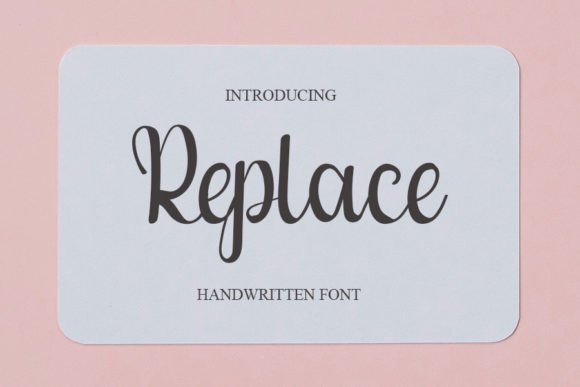
Feast your eyes on Replace - the epitome of handwritten fonts, crafted to bring warmth and personality to your digital creations. This modern script font, conceived by the talented NYA Letter, exudes poise and elegance.
Imagine your designs adorned with Replace's flowing curves, graceful lines, and captivating swashes. This font invites you to break free from conventional typography, adding a touch of artistry to your web pages, social media graphics, branding materials, and invitations. Embark on a journey where words dance harmoniously, evoking emotions and leaving a lasting impression.
Replace isn't just another font; it's a work of art that will transform your projects into captivating visual masterpieces. Its distinct character adds a sense of authenticity, making your designs stand out in a sea of sameness.
Whether you're a seasoned designer or just starting out, Replace is your perfect companion. Its versatility and user-friendliness make it accessible to all levels of expertise. Unleash your creativity and let Replace guide you to typographic excellence.
Don't settle for ordinary fonts. Choose Replace and let your words make a statement. It's the ideal choice for designers seeking beauty, originality, and a touch of sophistication. Experience the magic of Replace and elevate your designs to new heights.